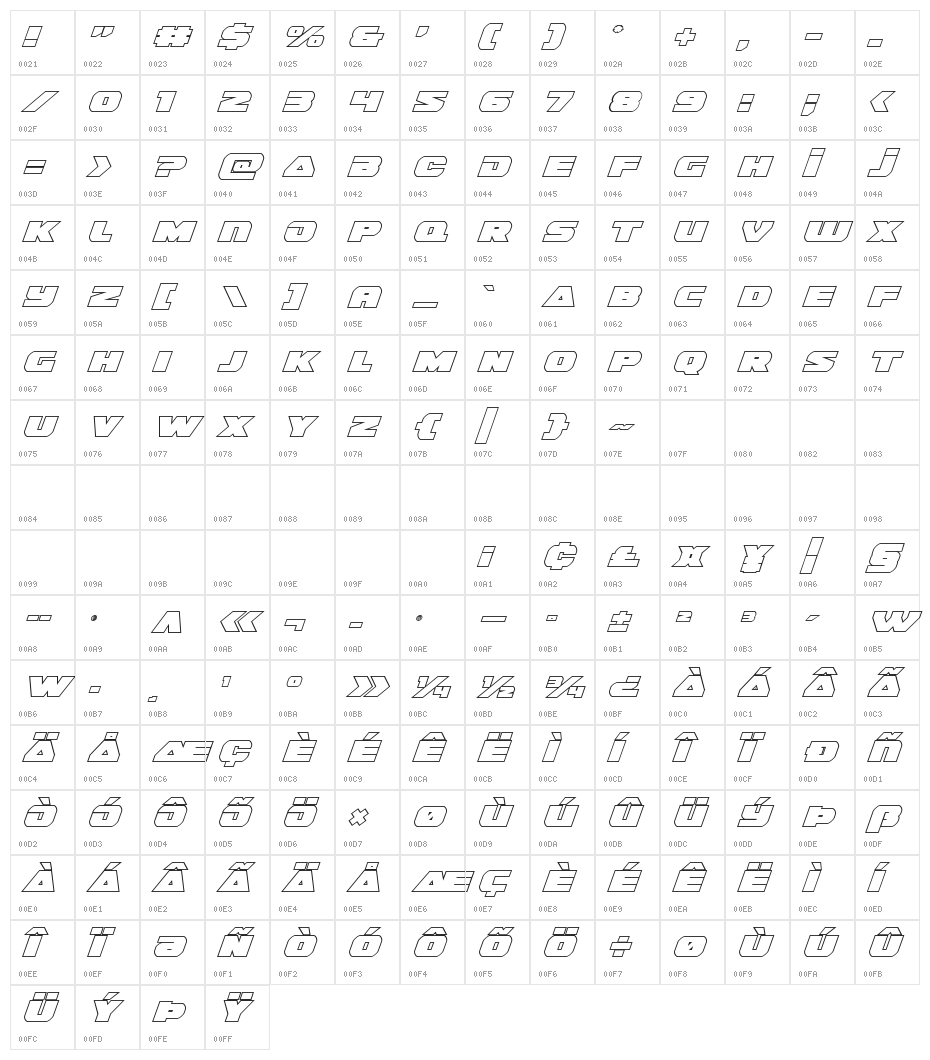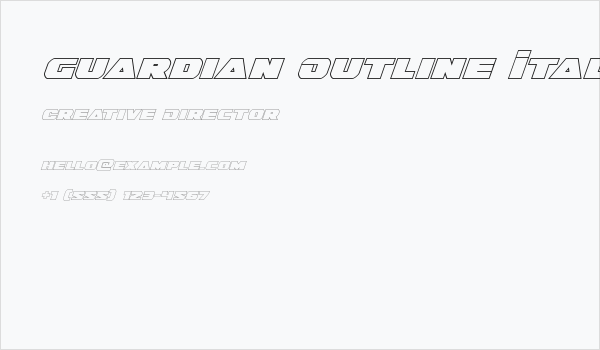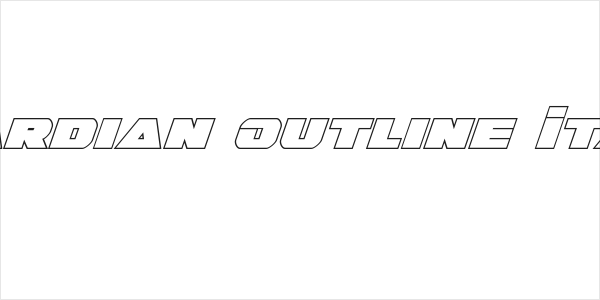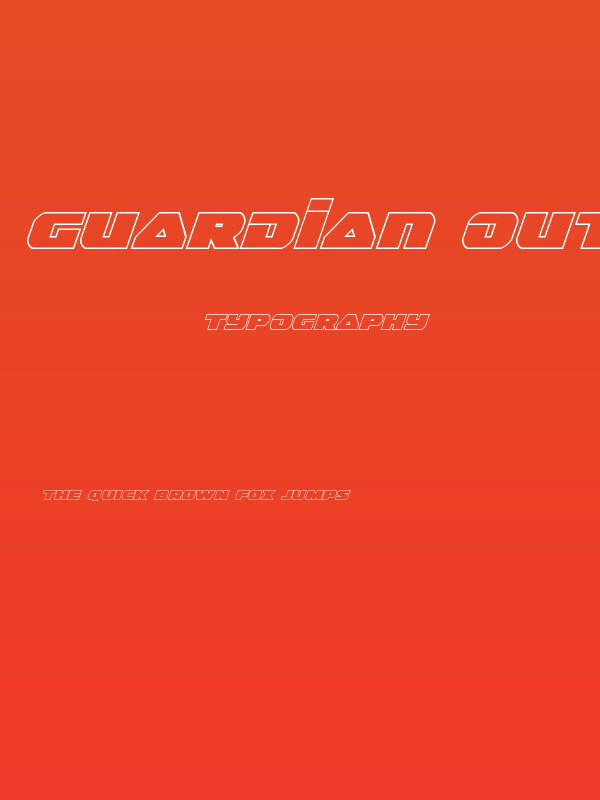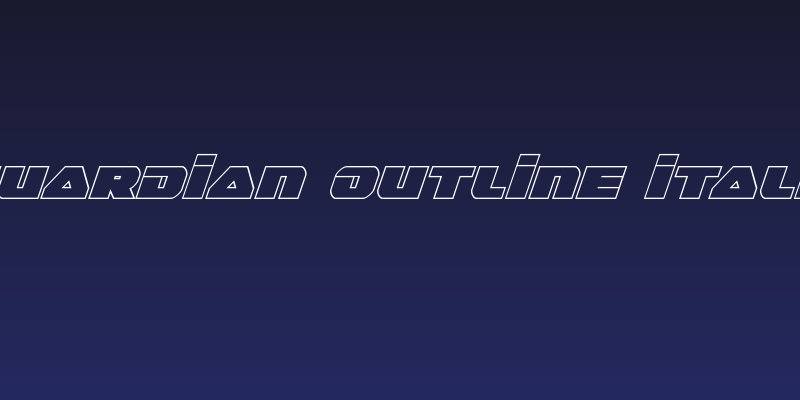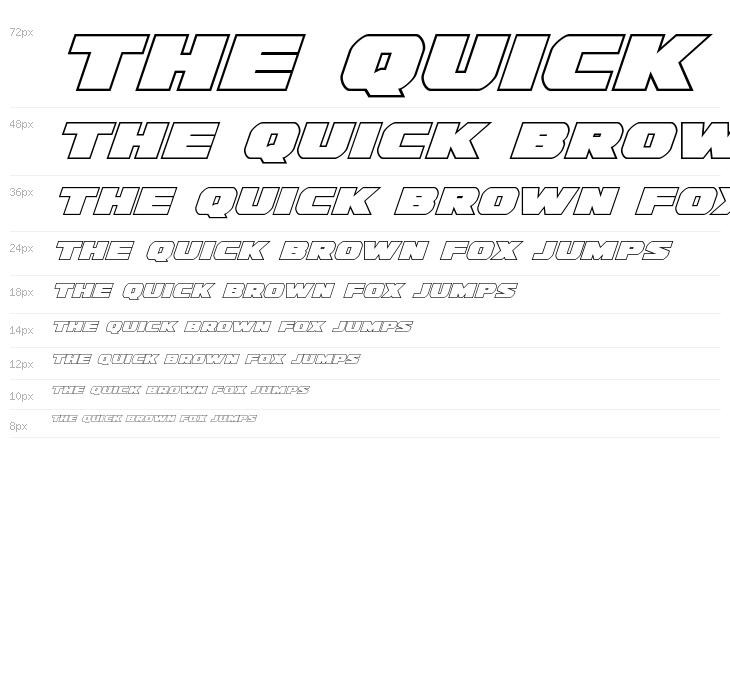
Guardian Outline Italic Font
Guardian Outline Italic Description
This font features a bold, geometric outline style with a distinct italic slant, giving it a dynamic and modern appearance. The characters are constructed with sharp angles and clean lines, creating a futuristic and technical feel. The uppercase and lowercase letters maintain a consistent width, enhancing readability while adding a unique flair. The numerals and special characters are designed to match the overall aesthetic, making them suitable for a variety of design applications. This font's outline style allows it to stand out in both digital and print media, offering versatility in creative projects.
| Proposed Projects | Ideal for technology branding, futuristic posters, video game titles, and digital interfaces. |